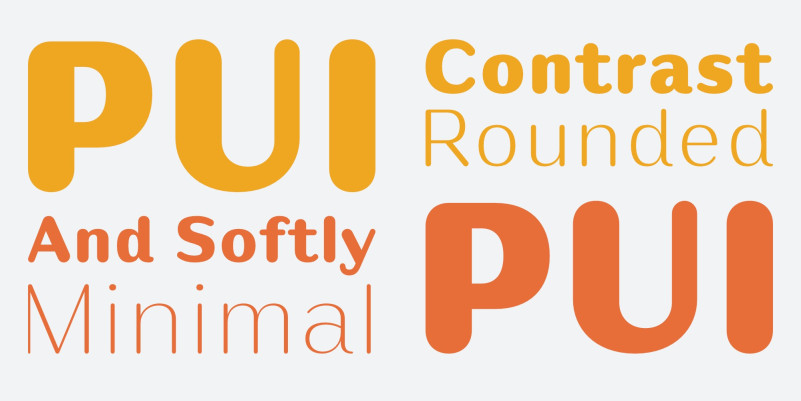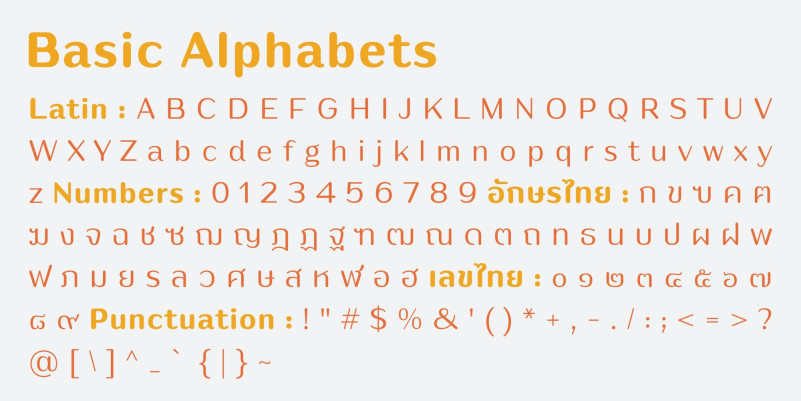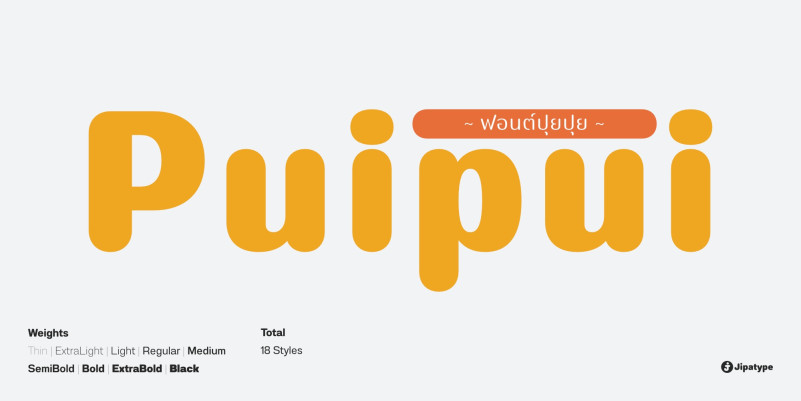
Puipui Font
Puipui Font, This font is the perfect way to add style and flair to your designs! The unique, sophisticated shapes and amazing mix of shapes in this font will automatically add a touch of class and sophistication. ideal for use in greeting cards, posters, product packaging, or just to add a little flair to your designs. Its simplicity will make it easy to read and you can use it anywhere you like. Grab your copy now and start making the most of it today!